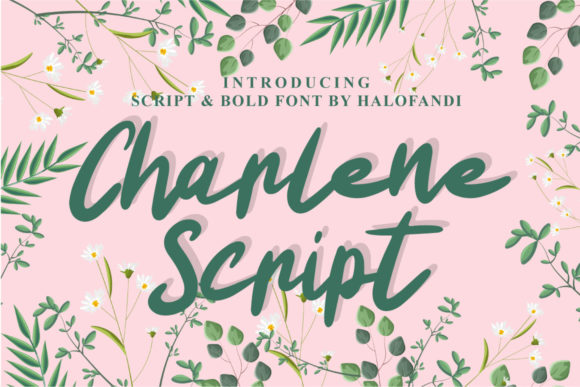
About Charlene Font
Charlene Script is a charming and bold font that adds a touch of personality to any design. With its playful and quirky style, it brings a sense of friendliness and uniqueness to your projects.
The bold strokes of Charlene Script make it highly visible and attention-grabbing, making it perfect for a wide range of applications. Whether you’re designing wedding invitations, brochures, leaflets, or any other print or digital media, Charlene Script will add a delightful and captivating element to your designs.
The handwritten nature of Charlene Script adds a sense of authenticity and warmth. Its cute and friendly look makes it particularly well-suited for creating logos, branding materials, posters, and crafty DIY projects. Whether you’re designing for a fun and playful brand or aiming to add a personal touch to your creations, Charlene Script is the ideal choice.
The versatility of Charlene Script allows it to adapt to various design styles and themes. It can effortlessly transition from casual and whimsical to modern and trendy. This flexibility opens up a world of creative possibilities, allowing you to experiment and explore different design directions.
In addition to its appealing appearance, Charlene Script is also easy to work with. Its clean and legible characters ensure readability, even at smaller sizes. This makes it suitable for both digital and print designs, providing a consistent and professional look across different platforms.
Whether you’re a professional designer or a DIY enthusiast, Charlene Script is a font that sparks creativity and adds a touch of charm to your projects. Its cute and friendly vibe, coupled with its bold and captivating nature, make it a versatile choice for a wide range of design applications.
So, embrace the playful and quirky nature of Charlene Script and let it bring your designs to life. From wedding invitations to logos and crafty DIY projects, this font will add a delightful and personalized touch that sets your creations apart.